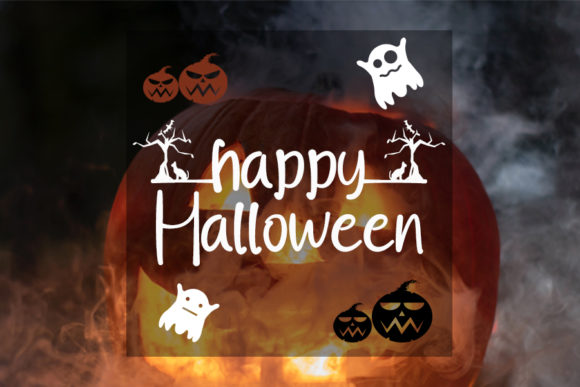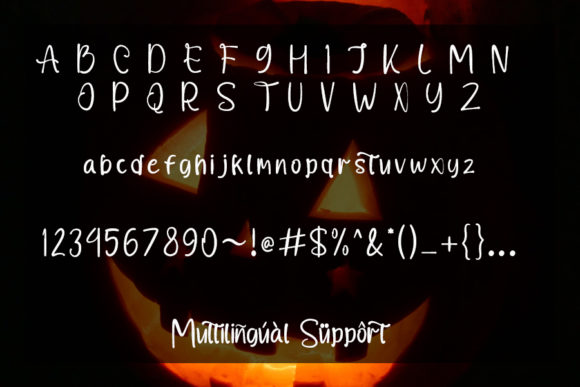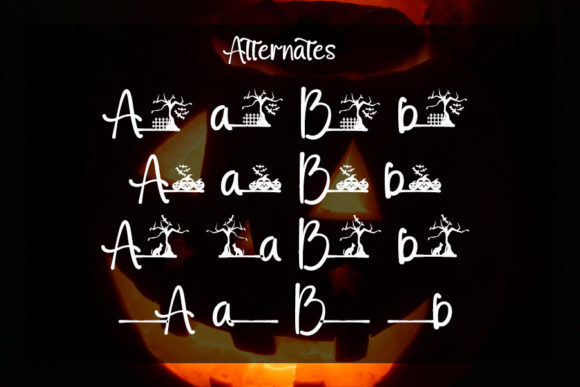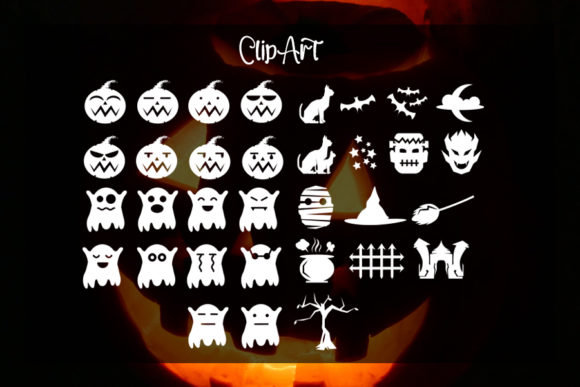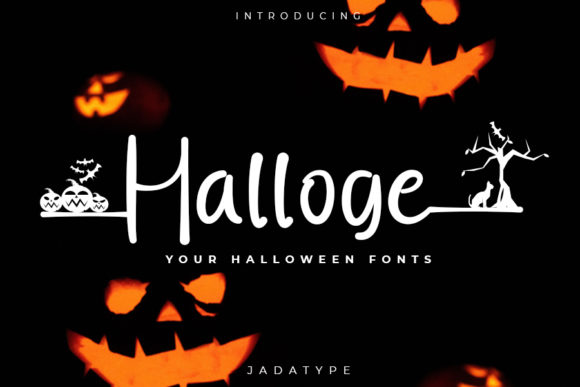
Introduction to Halloge Font
As a designer, have you ever found yourself stuck in a creative rut, searching for the perfect font to add a touch of magic to your project? It’s that time of the year again, and you’re looking for a font that captures the essence of Halloween. Look no further than the Halloge Font, a display font that’s sure to cast a spell on your audience.
This high-quality font is packed with dozens of alternatives, each one more creepy and humorous than the last. With its PUA encoded design, you’ll have access to all the glyphs and swashes you need to create a truly unique and eye-catching design. Whether you’re working on a free download or a commercial project, the Halloge Font is the perfect resource for designers looking to add some Halloween flair to their work.
Key Features of Halloge Font
- High-quality design resource suitable for creative projects, offering a unique and elegant aesthetic.
- Features a transparent background, making it easy to customize and layer with other design elements.
- Designed with high resolution (300 DPI) to ensure crisp and clear text, even at large sizes.
- Includes a wide range of characters, including Latin, Cyrillic, and Greek alphabets, as well as punctuation marks and symbols.
- Perfect for use in various design contexts, from branding and logos to web design and digital art.
Honest Review: Halloge Font
I recently came across the Halloge Font, and I must say it’s a great addition to any design project. The free download was a nice surprise, and the high quality of the font is immediately apparent.
- ✨ The font has a unique, modern feel that’s perfect for creative projects.
- ✨ The transparent background makes it easy to layer with other design elements.
- ✨ The font is highly customizable, allowing for a range of styles and applications.
- ⚠️ The font is not suitable for body text, as it can be quite ornate and overwhelming.
- ⚠️ Some users may find the font to be too trendy or gimmicky.
Overall, I’m impressed with the Halloge Font. It’s a great design resource for anyone looking to add a touch of sophistication and creativity to their projects. With a little caution and consideration, this font can be a valuable addition to any design arsenal.
How to Use Halloge Font
The Halloge Font is ideal for a variety of creative projects, including blog posts, social media graphics, and presentations. Its high-quality design and transparent background make it a valuable design resource for anyone looking to add a touch of sophistication to their work.
Yes, the Halloge Font is available in high quality, with a range of weights and styles to suit your design needs. The font is carefully crafted to ensure that it’s clear and legible, even at small sizes.